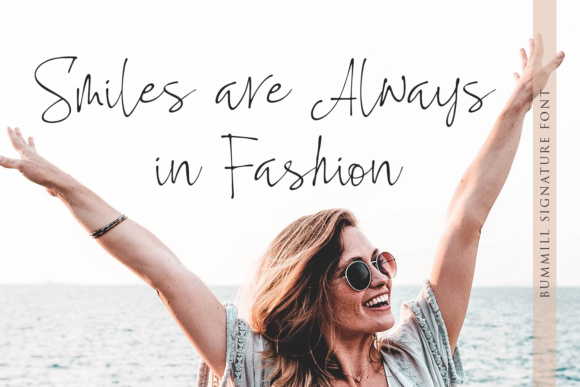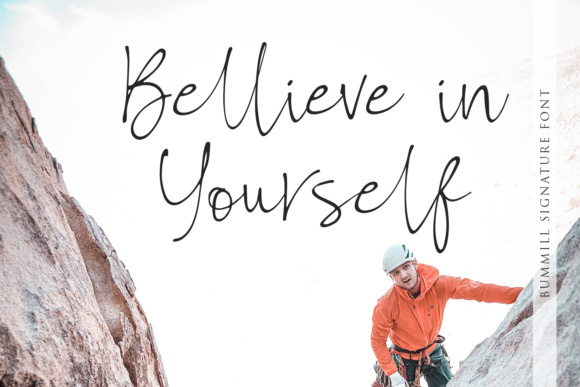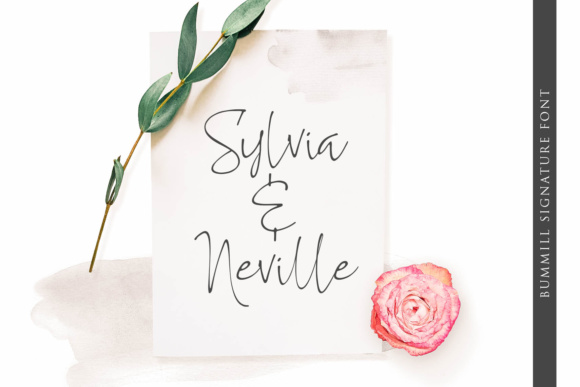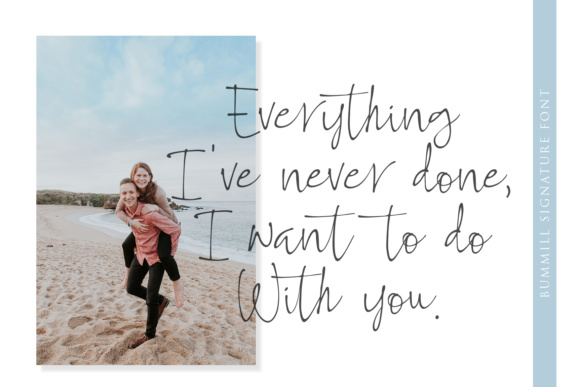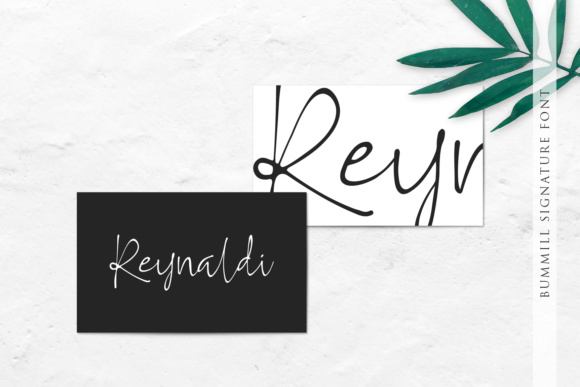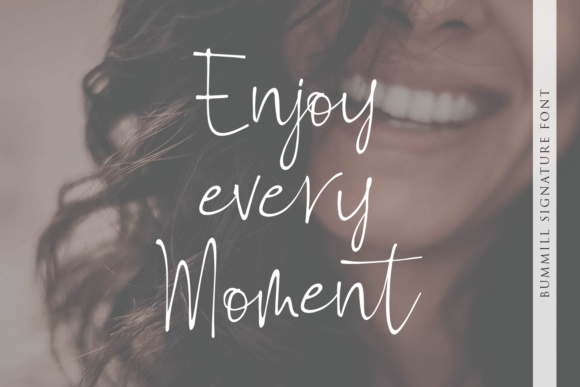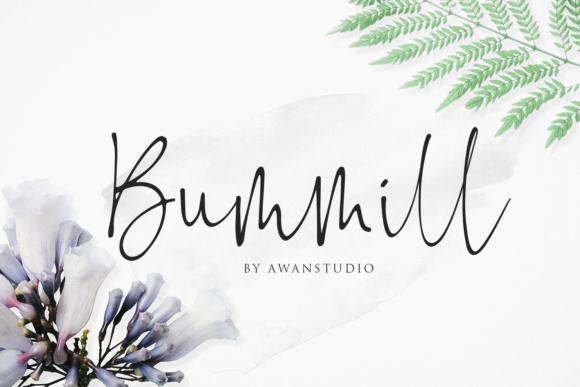
Bummill Font: Elevate Your Designs with Elegance and Style
In the world of typography, fonts play a crucial role in conveying the tone and aesthetic of a design. For those seeking a signature font that exudes elegance and sophistication, Bummill Font is an excellent choice. This beautiful font is perfect for invitationals, fashion projects, and any design that requires a high level of style. In this article, we’ll explore the features and benefits of Bummill Font, and how it can elevate your designs to new heights.
The Characteristics of Bummill Font
Bummill Font is a refreshing and elegant font that boasts a unique and captivating style. Its sophisticated appearance makes it ideal for designs that require a touch of luxury and refinement. The font’s clean lines, precise curves, and balanced proportions create a harmonious visual experience that is both pleasing to the eye and easy to read.
One of the standout features of Bummill Font is its versatility. It can be used in a variety of design applications, from digital projects to print materials. Whether you’re creating a wedding invitation, a fashion brochure, or a social media graphic, Bummill Font is sure to make a lasting impression.
The Benefits of Using Bummill Font
So, why choose Bummill Font for your design projects? Here are just a few benefits of using this exceptional font:
• Elegance and Sophistication: Bummill Font adds a touch of elegance and sophistication to any design, making it perfect for high-end projects.
• Versatility: This font can be used in a wide range of design applications, from digital to print.
• Readability: Bummill Font is easy to read, even at small sizes, making it ideal for body text and captions.
• Uniqueness: Bummill Font has a distinctive style that sets it apart from other fonts, ensuring your designs stand out from the crowd.
How to Use Bummill Font in Your Designs
Using Bummill Font in your designs is easy. Here are a few tips to get you started:
• Pair it with other fonts: Bummill Font pairs well with other serif and sans-serif fonts, creating a harmonious and balanced look.
• Experiment with font sizes: Bummill Font looks great at a range of font sizes, from large headings to small body text.
• Use it for emphasis: Bummill Font is perfect for adding emphasis to key words or phrases in your design.
Design Inspiration with Bummill Font
To give you a better idea of how Bummill Font can be used in design, here are a few inspiring examples:
• Wedding Invitations: Bummill Font is perfect for wedding invitations, adding a touch of elegance and sophistication to your wedding stationery.
• Fashion Brochures: This font is ideal for fashion brands, creating a luxurious and high-end feel that’s perfect for showcasing clothing and accessories.
• Social Media Graphics: Bummill Font can add a touch of style and sophistication to your social media graphics, helping you stand out in a crowded online space.
In conclusion, Bummill Font is a beautiful signature font that’s perfect for designers and crafters looking to add a touch of elegance and sophistication to their work. With its unique style, versatility, and readability, Bummill Font is sure to elevate your designs to new heights. Whether you’re working on a wedding invitation, a fashion project, or a social media graphic, Bummill Font is an excellent choice.